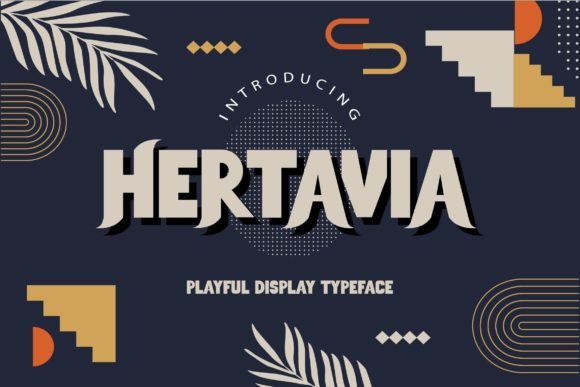
Introducing Hertavia Font - A Classic Masterpiece for Timeless Designs
In the realm of typography, Hertavia Font emerges as a radiant beacon, illuminating your creative endeavors with its timeless charm and modern elegance. This captivating display font, meticulously crafted by the talented Vunira, embodies the essence of classicism, inviting you to embark on a journey of self-expression and artistic mastery.
Step into the world of Hertavia and discover a symphony of curves and lines that dance together in perfect harmony. Each letterform is meticulously designed to convey a sense of nostalgia, evoking memories of timeless elegance and sophistication. The bold strokes and unique styling of Hertavia create a visual impact that commands attention, making your designs stand out from the ordinary.
With Hertavia at your fingertips, you can elevate your invitations and greeting cards to new heights of beauty. Imagine the joy of your loved ones as they receive a heartfelt message adorned with this enchanting font. Let Hertavia transform your branding materials into captivating expressions of your unique identity, leaving a lasting impression on your clients and customers.
Create business cards that exude professionalism and sophistication with Hertavia's timeless appeal. Inspire your audience with captivating quotes, rendered in this elegant font, and watch as your words resonate with them on a deeper level. Unleash your creativity and craft stunning posters that capture the essence of vintage charm, igniting a sense of wonder in all who behold them.
Hertavia is the perfect companion for those seeking a touch of classic beauty in their designs. Its versatility extends to a wide range of applications, from web design and social media graphics to packaging and product branding. With its ability to lend a touch of timeless sophistication to any project, Hertavia is the ultimate choice for designers and creatives who value elegance and enduring style.
Embrace the allure of Hertavia Font today and unlock a world of creative possibilities. Let this remarkable display font guide you on a journey of self-expression, leaving an indelible mark on the hearts and minds of your audience.